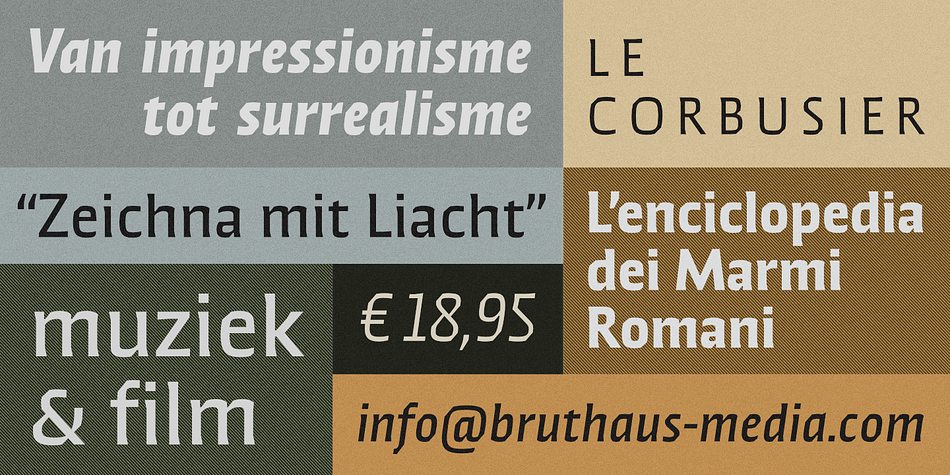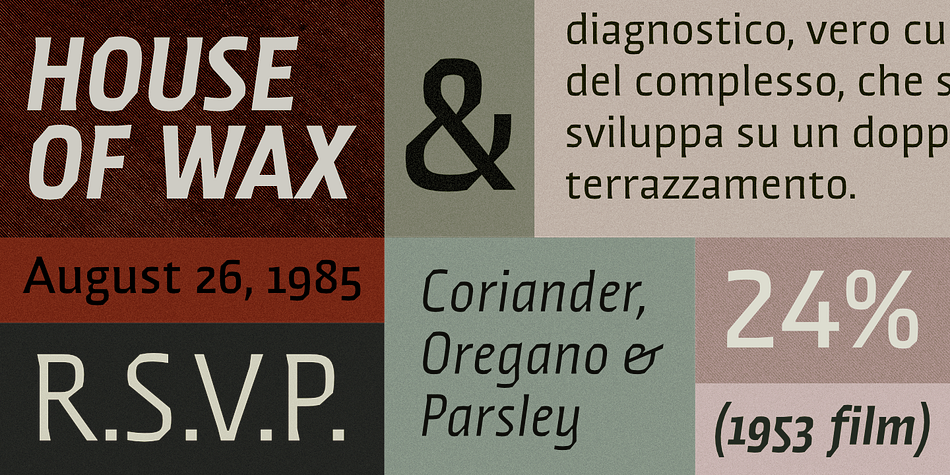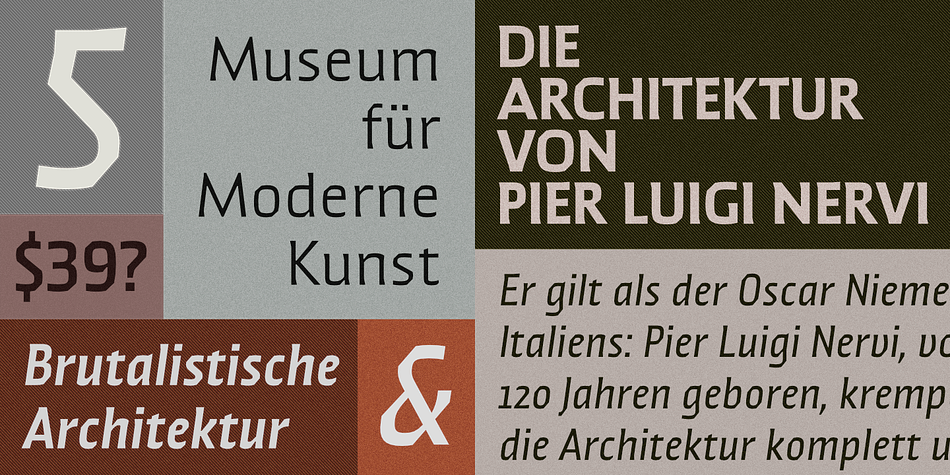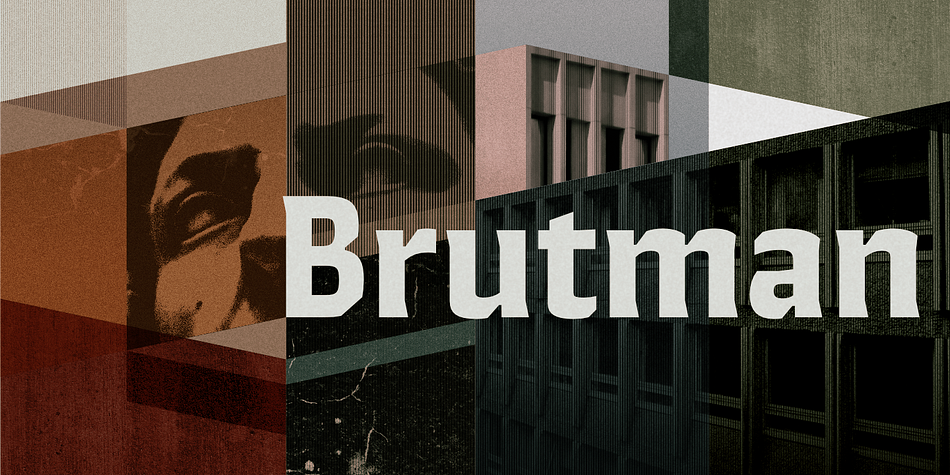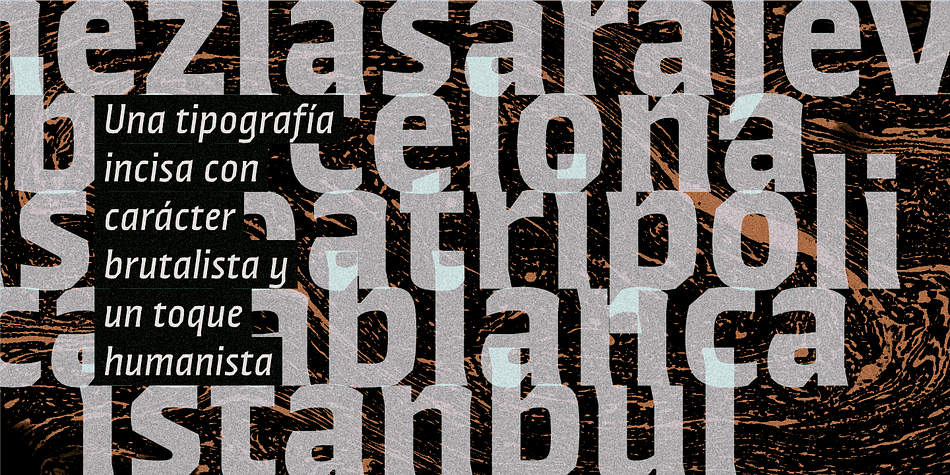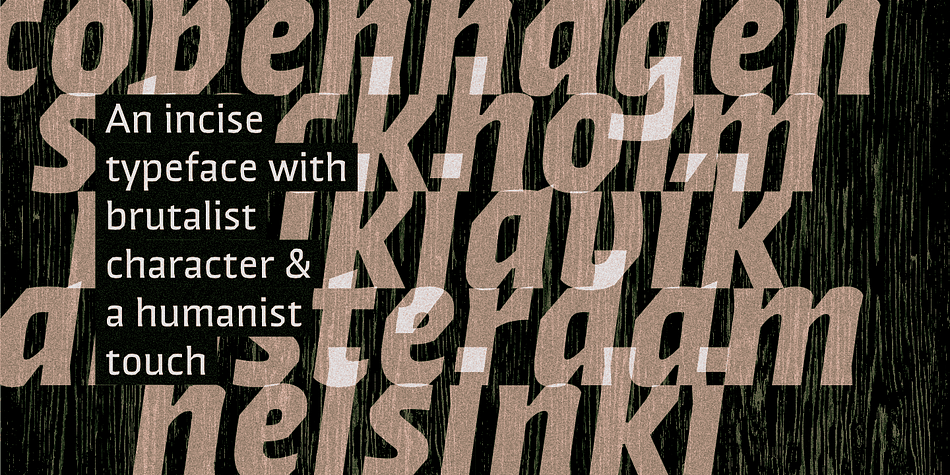
Designed by Sergio Ramírez, Brutman is a display sans, novelty and sans serif font family. This typeface has twelve styles and was published by Sardiez.
The purpose of Brutman was to create a typeface that reimagined the incise style for the 21st century.
Its roots emerge from the humanistic style, adopting the structures of the roman capitals for the upright version and some features of the chancery style for the italics. On the other side, its contours are forged by the frankness of the brutalist style, which can be seen in the asymmetrical flared terminations, the sharp shoulders and the diagonal cuts that emulate the stress of the broad nib pen.
The result is a typeface that combines a sleek character with a historical flair. It conveys a feeling of modernity and sophistication when it comes to shine in big sizes, but on the functional size has sharp shapes that make it perform very well on small ones.